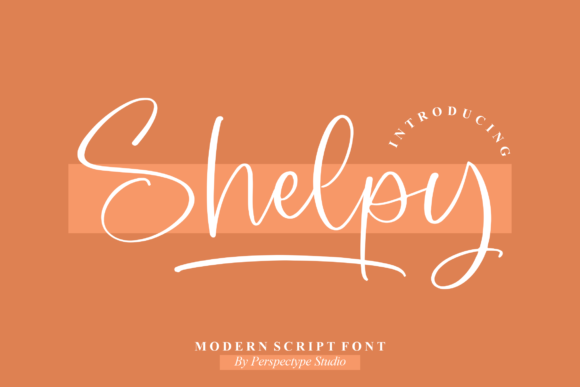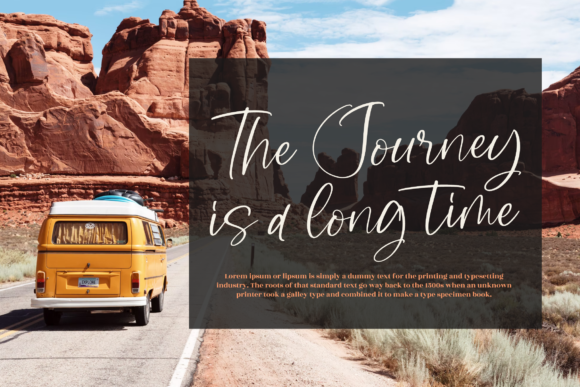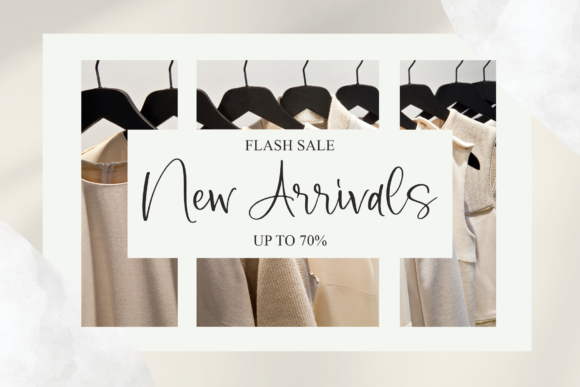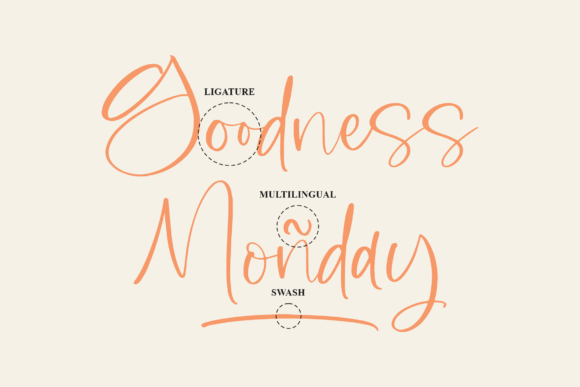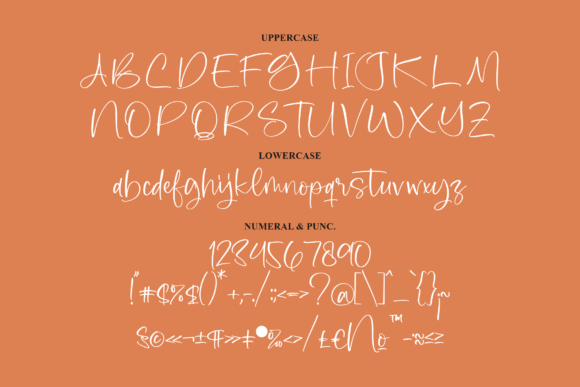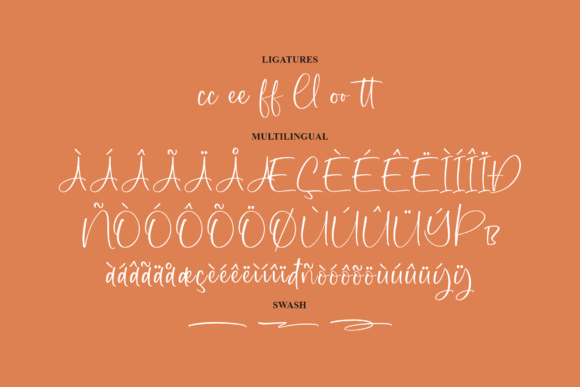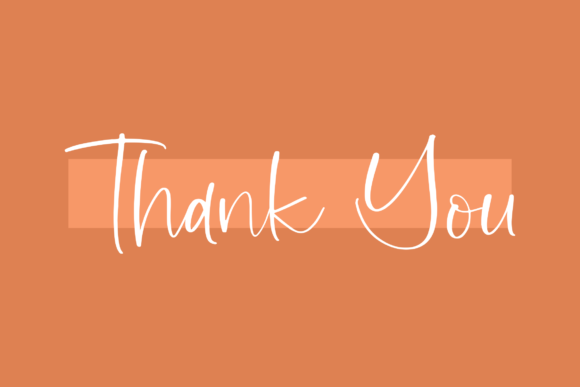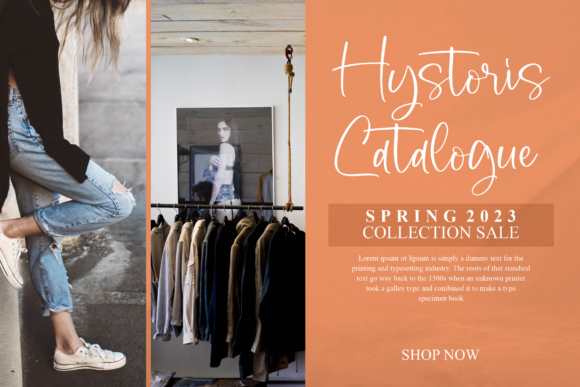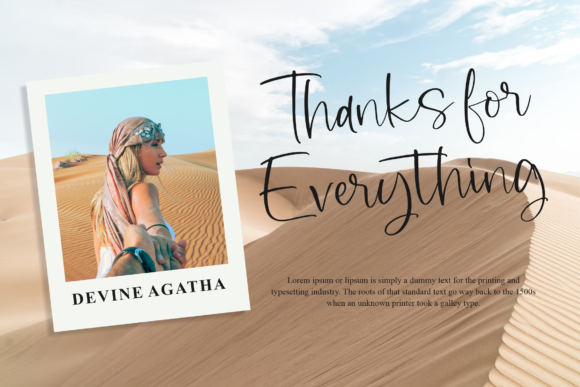
Shelpy Font
About Shelpy Font
Shelpy is a free-flowing script font created for packaging products, invitation cards, flyers, mockups, event posters, and anything else that requires high-quality vibes. It has a beautiful and balanced character, that fits well with the large design pool.